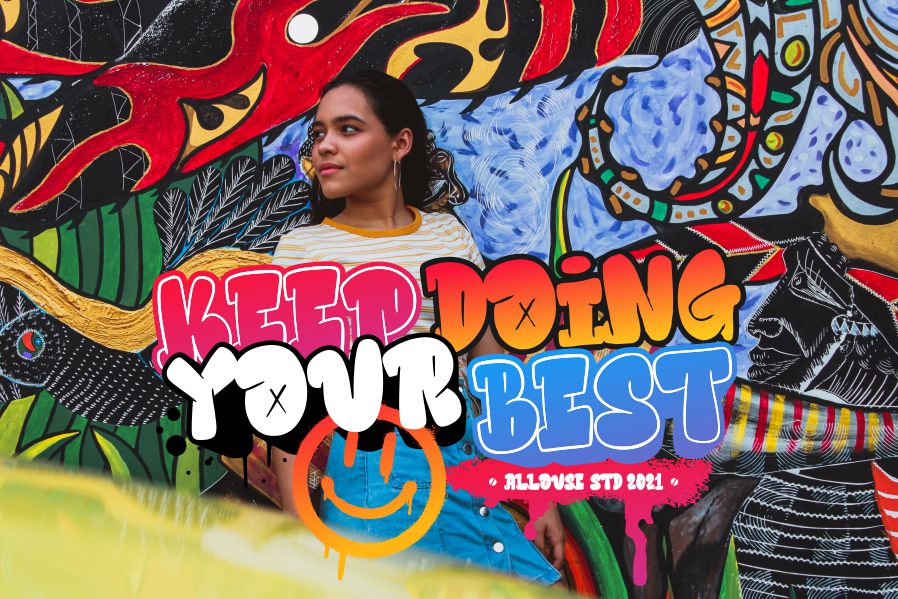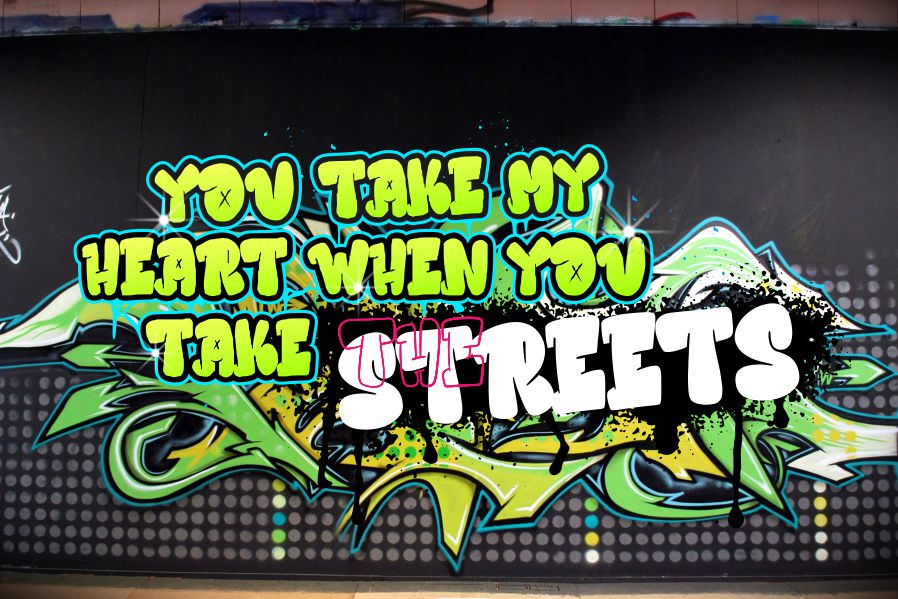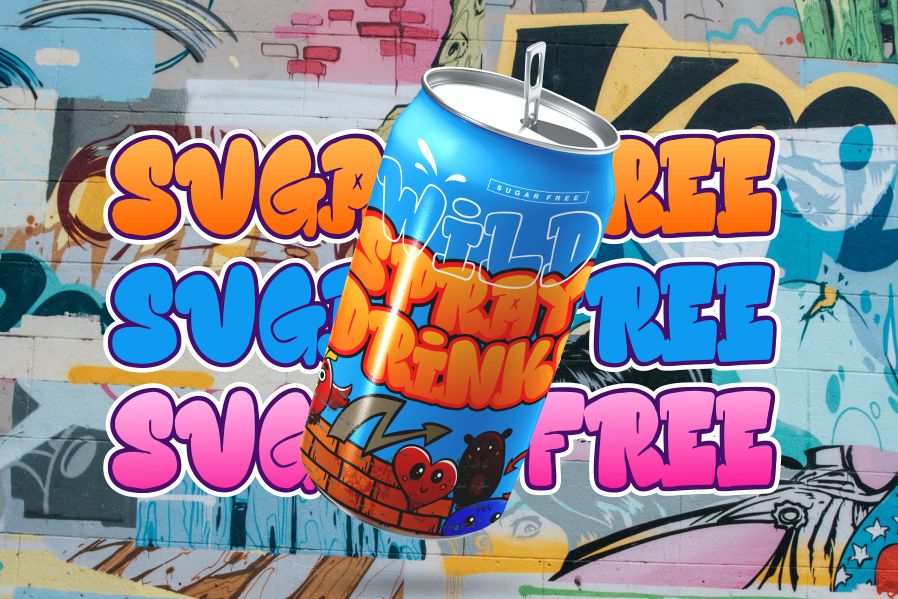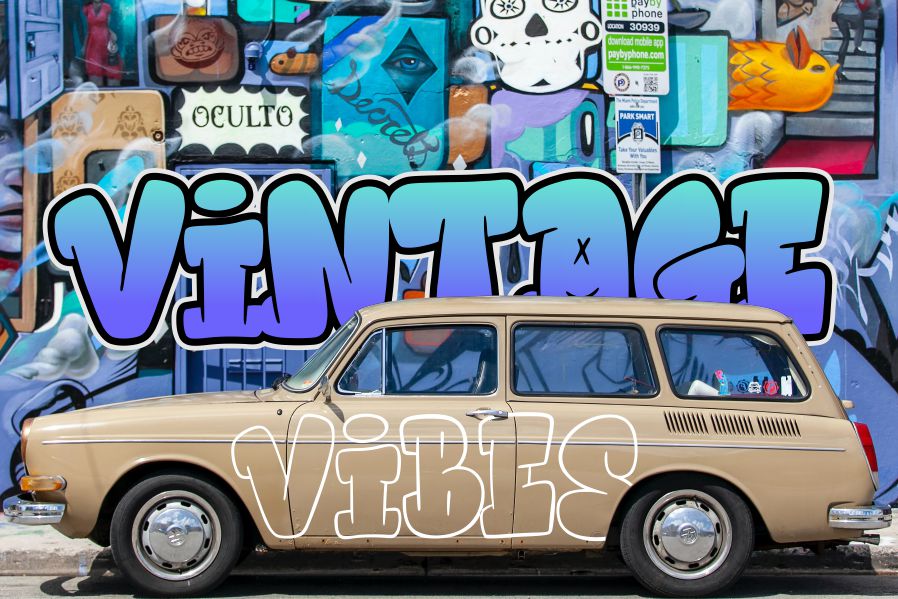
Hidebeast Font
Hidebeast Display Font
This is a Bold Graffiti Display Font. Hidebeast is perfect for product packaging, branding project, magazines, social media, weddings, or just used to express words above the background.